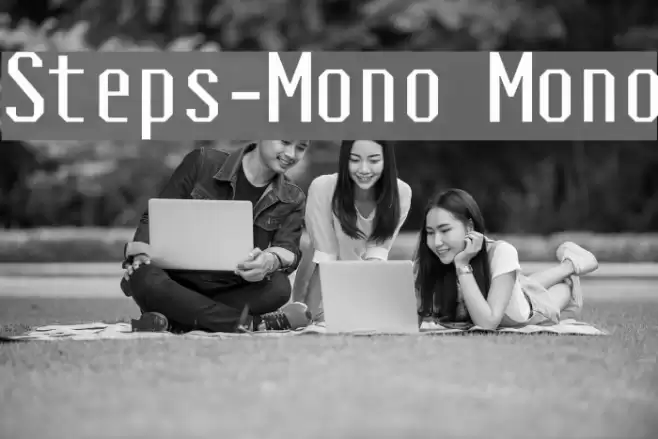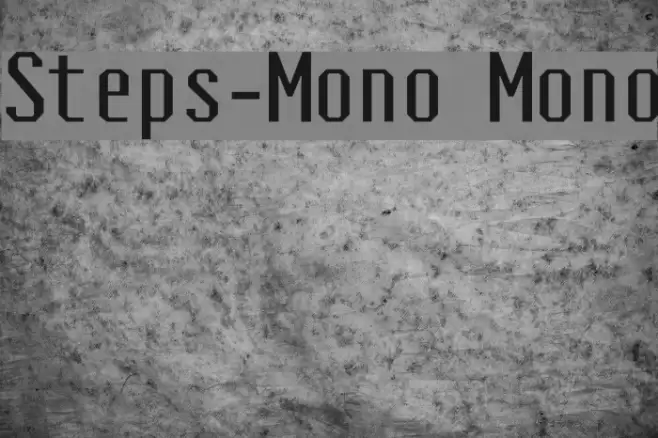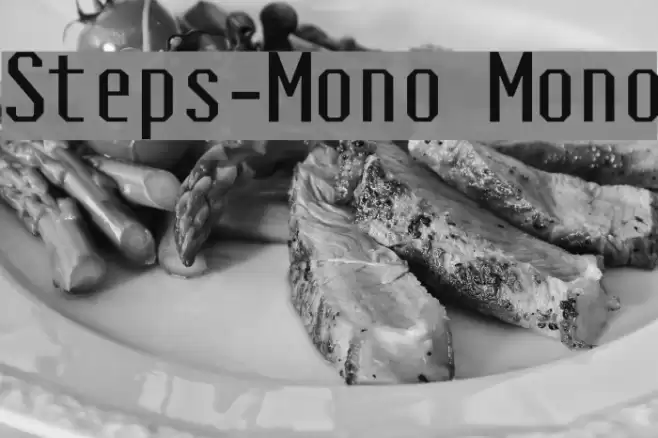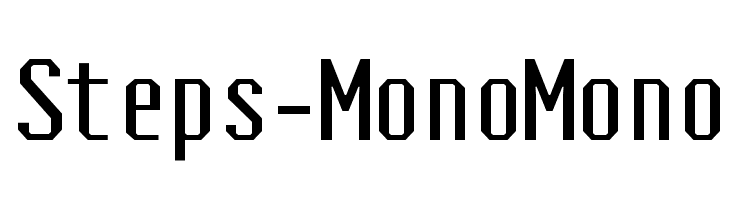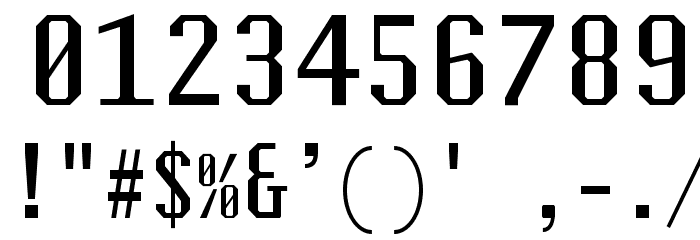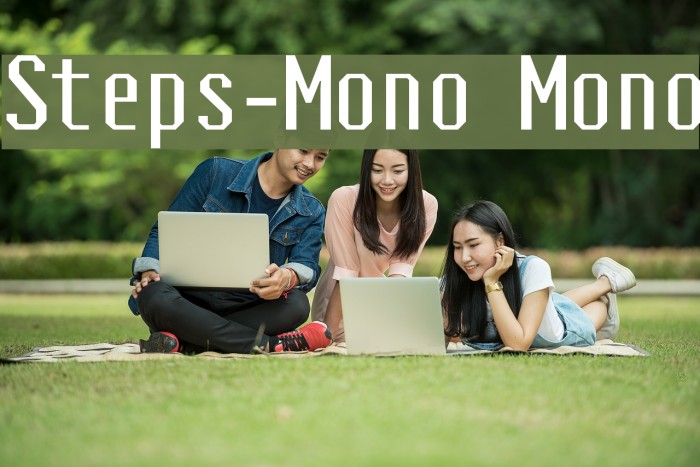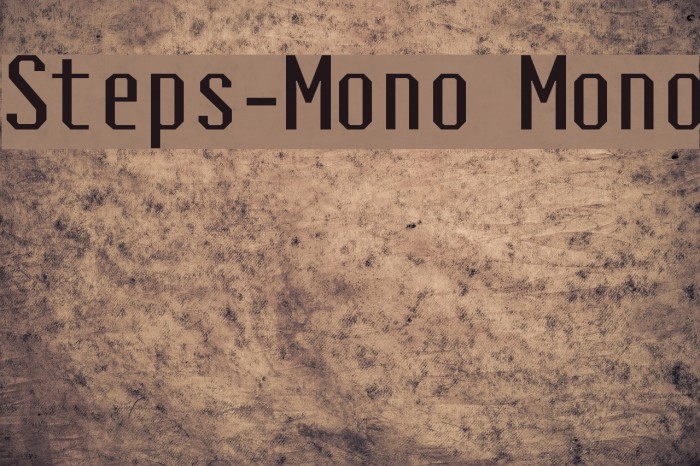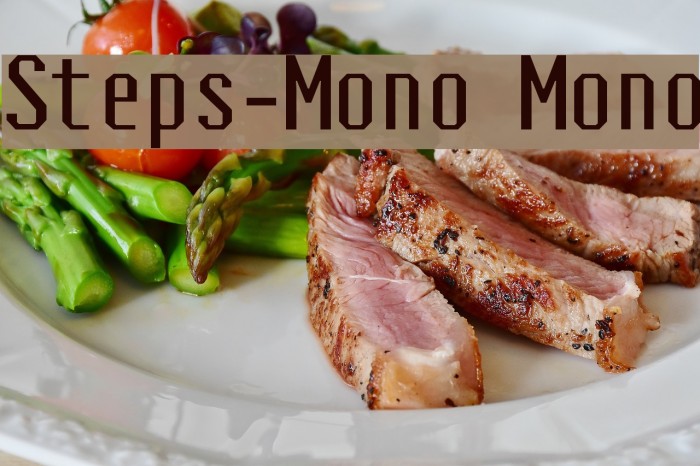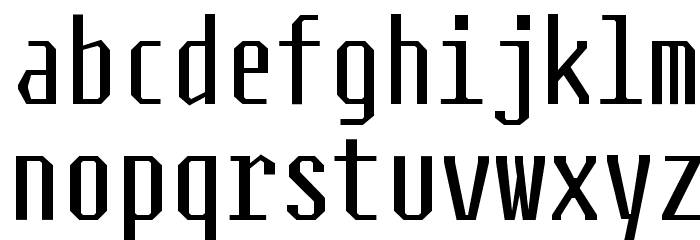
Steps-Mono Mono Font
Steps-Mono Mono Description
This font features a geometric and structured design, characterized by its monospaced nature where each character occupies the same amount of horizontal space. The letters have a modern, industrial feel with sharp angles and clean lines, giving it a technical and precise appearance. The uppercase letters are bold and commanding, while the lowercase letters maintain the same structured aesthetic. The numerals are clear and distinct, making them highly legible. Special characters are designed with the same geometric precision, ensuring consistency across the font. This font is ideal for projects that require a modern, technical look.
A geometric, monospaced font with a modern, industrial design from Sans Serif fonts.
- Proposed Projects: Ideal for coding environments, technical documentation, and modern branding projects.
- Use Case: Coding, Technical documentation, Branding